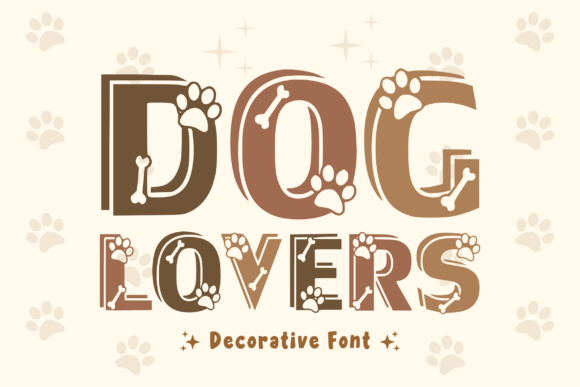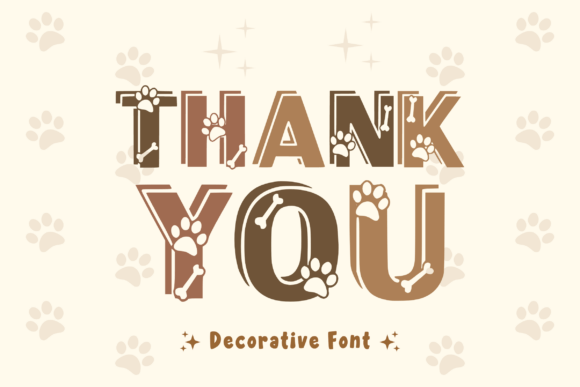
Introducing Doggy Font: The Ultimate Companion for Canine-Inspired Creations
Welcome to “Doggy,” a charming font specially designed for all canine enthusiasts. Each letter in this delightful font is beautifully unique, showcasing absolute cuteness that captures the essence of our furry companions. Doggy is an ode to contemporary design trends, making it ideal for adding a touch of whimsy to your creative projects.
The Inspiration Behind Doggy Font
The Doggy font is a thoughtful creation aimed at bringing a smile to the faces of dog lovers everywhere. The designer’s inspiration came from the playful, loving nature of dogs, which are often considered part of the family. This font embodies that same spirit of fun and affection, making it a perfect fit for any project that aims to capture the hearts of those who adore dogs.
Key Features of Doggy Font
- Unique Character Design: Each letter in the Doggy font is meticulously crafted to ensure it stands out. From the playful curves of the ‘C’ and ‘S’ to the adorable dots that could represent a dog’s eyes, every detail is a testament to the charm of our canine friends.
- Contemporary Aesthetic: Doggy aligns with current design trends that favor whimsical and personalized elements. This makes it incredibly versatile for a wide range of applications, from digital media to print.
- Wide Range of Applications: Whether you’re working on custom apparel, home decor, or stationery, Doggy can add that special touch that turns ordinary items into keepsakes.
Using Doggy Font in Your Projects
Doggy is more than just a font; it’s a creative tool that can elevate your designs to new heights. Here are some ideas on how to incorporate Doggy into your work:
Custom Apparel
Imagine a t-shirt with a quote about dogs, rendered in Doggy font. The playful and unique letters will not only make the quote stand out but also convey a sense of personality and humor. It’s perfect for dog owners who want to express their love for their pets through fashion.
Mugs and Tumblers
Transform ordinary mugs and tumblers into personalized art pieces with Doggy font. A simple phrase like “Pawsitive Vibes Only” can become a beautiful piece of functional art that dog lovers will cherish.
Personalized Cards and Stationery
Add a touch of whimsy to your cards and stationery with Doggy. Whether it’s a birthday card for a dog lover or a set of personalized notecards, this font will make your creations more endearing and unique.
Sublimation Projects
For those who enjoy sublimation techniques, Doggy font can be a fantastic addition to your designs. Create stunning sublimation prints for dog-themed products, such as pillow covers, tote bags, and more, that are sure to delight.
Why Choose Doggy Font?
In a world where design trends are constantly evolving, having a font like Doggy can give you a unique edge. Here are a few reasons why Doggy should be part of your design toolkit:
- Cuteness Factor: In an era where cuteness and charm are highly valued in design, Doggy offers a fresh take on playful typography.
- Versatility: From digital graphics to print materials, Doggy’s versatility ensures it can be used across various mediums.
- Emotional Connection: For dog lovers, Doggy provides a way to infuse their designs with an element of their personality or their love for dogs, creating an instant emotional connection with the audience.
Doggy font is more than just a typeface; it’s a way to bring joy and personality into your designs. Whether you’re a professional designer or a crafter, Doggy offers endless possibilities for creativity. So, invite Doggy into your collection and let it breathe life into your amazing creations.